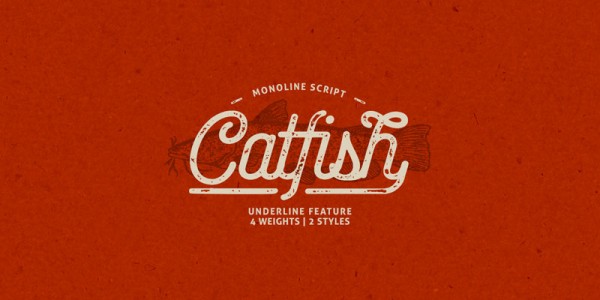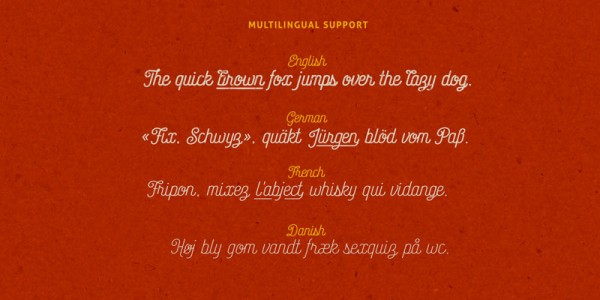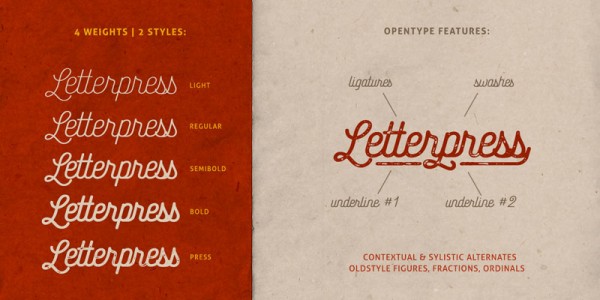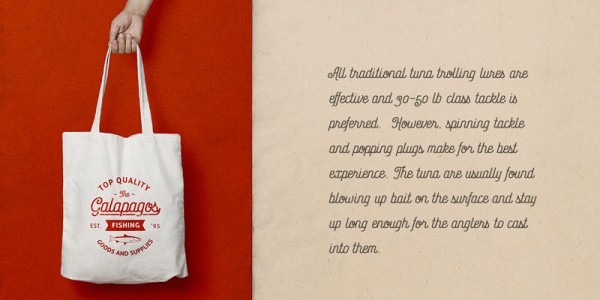
The Catfish font family, a monoline script typeface with a classic vintage touch.
British type designer Elena Genova of foundry My Creative Land is well known for lovely handwriting typefaces. The Catfish font family is another beautiful script typeface by Elena Genova, which has been released in July 2015. It’s a vintage inspired monoline script with a geometric touch. It can be used for classic signage as well as branding projects, logotypes, posters, t-shirt designs, book covers, invitations, and much more.
The family consists of 4 weights and 2 styles. Catfish Press is a textured version with a little more worn look and feel. The typeface comes with diverse OpnType features such as Ligatures, Swashes, Underlines, Contextual and Stylistic Alternates, Oldstyle Figures, Fractions, and Ordinals. The Underline feature has been tested in Adobe Illustrator, InDesign, Photoshop, and Microsoft Word. The download pack of the Catfish font family is also equipped with a how-to PDF explaining how to use these underlines. For additional information, please follow the link below.